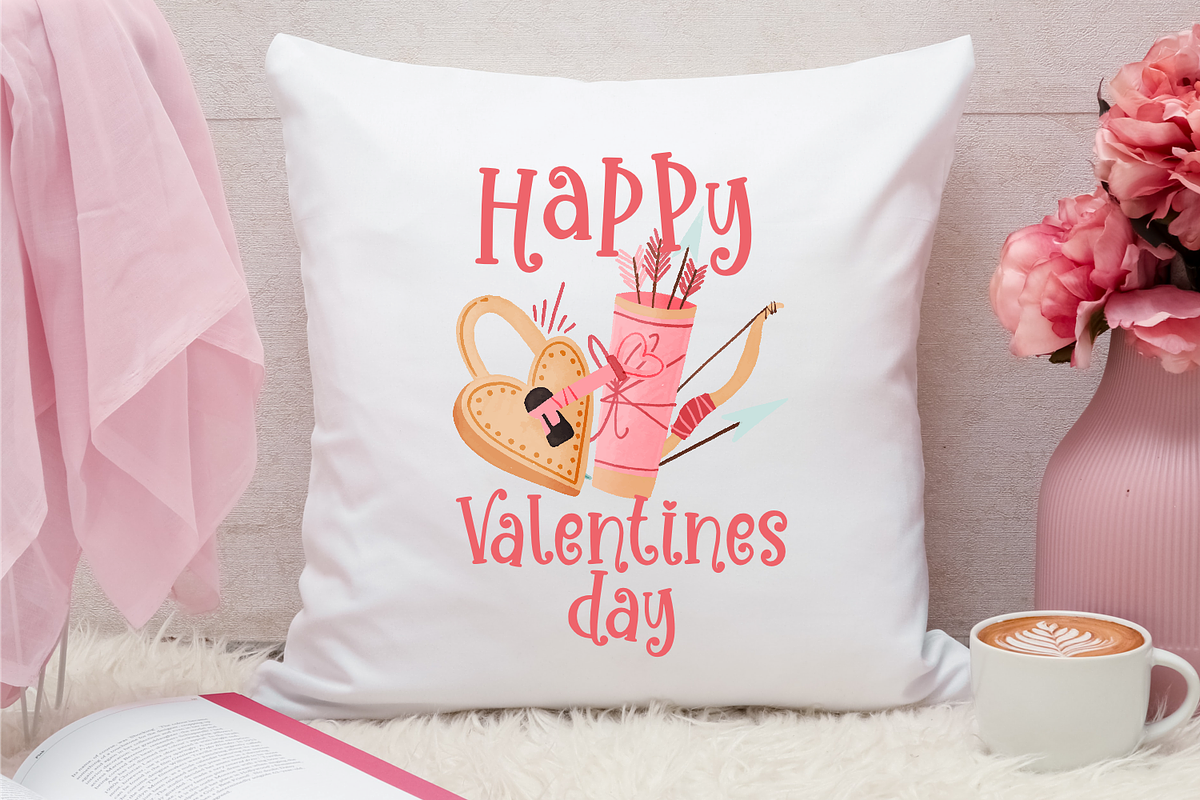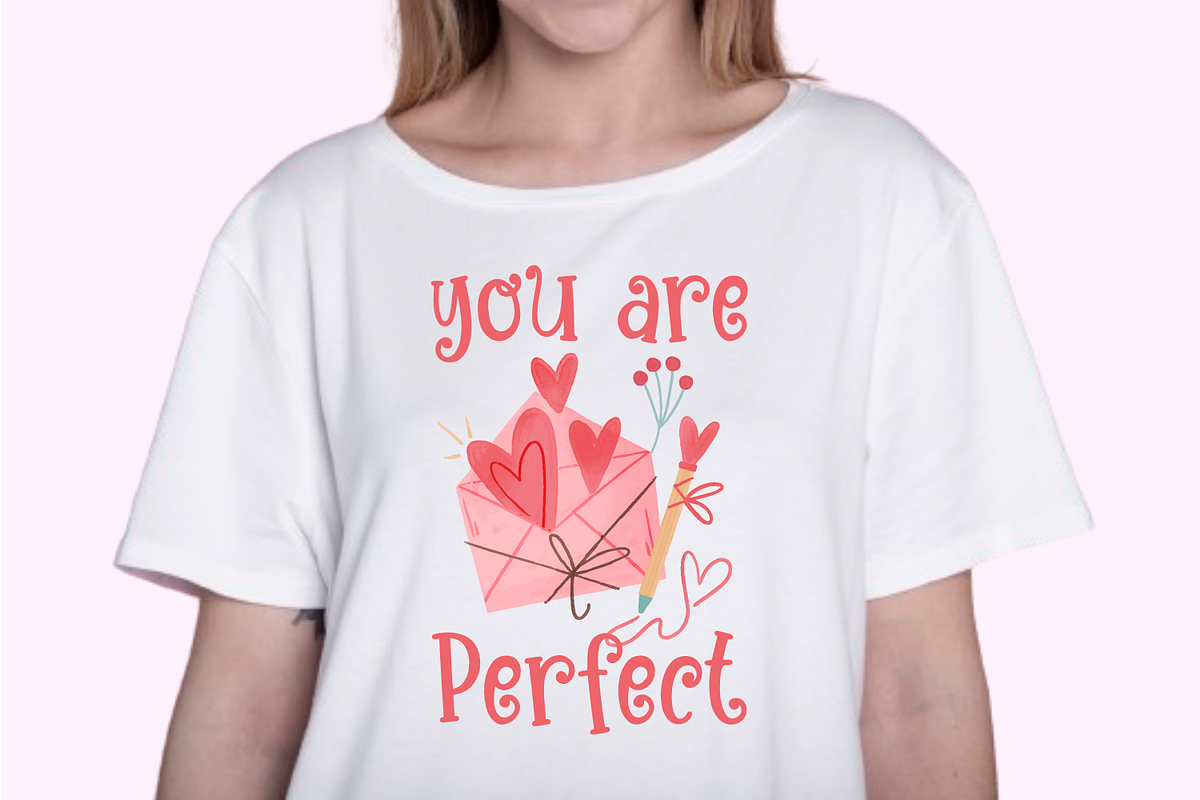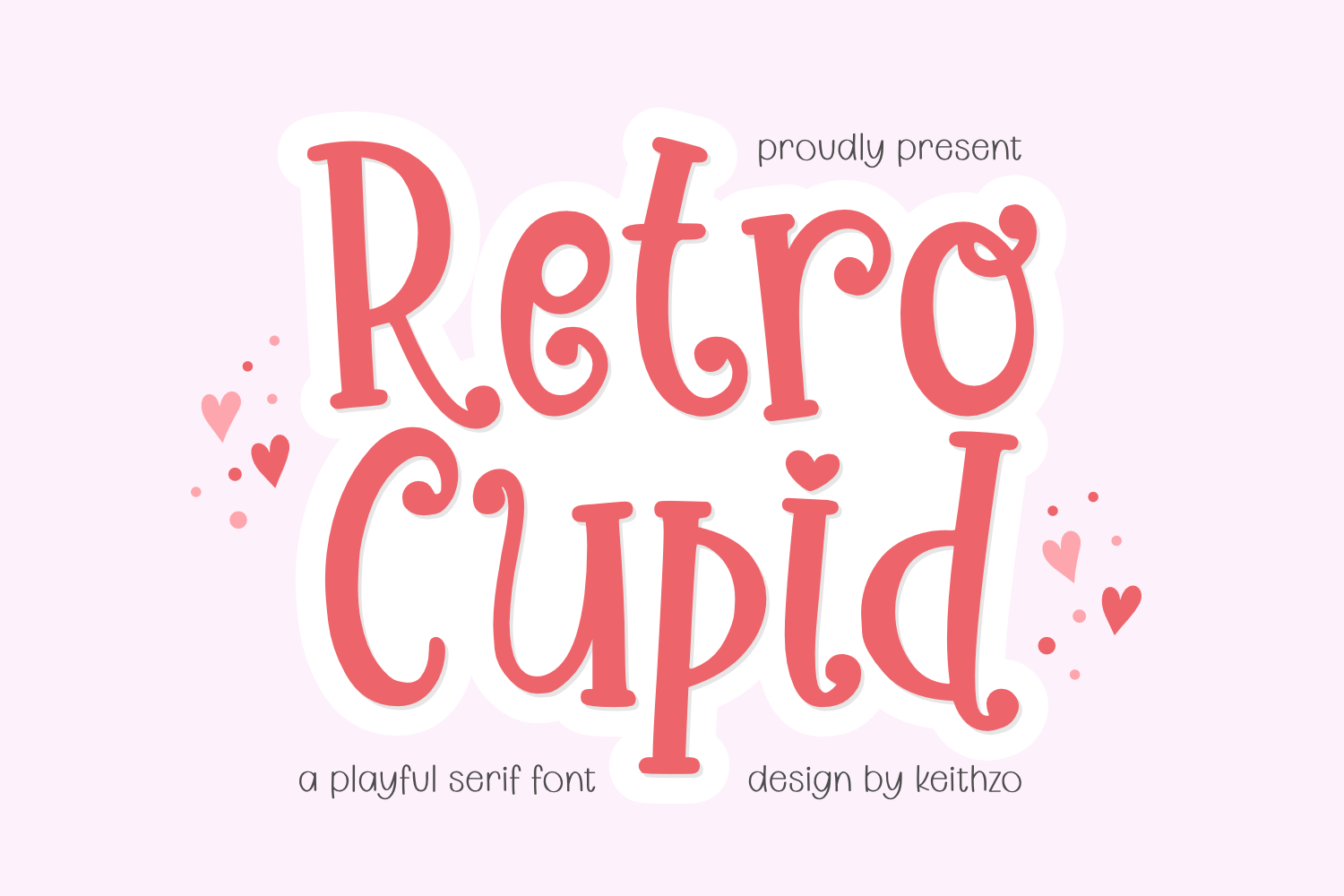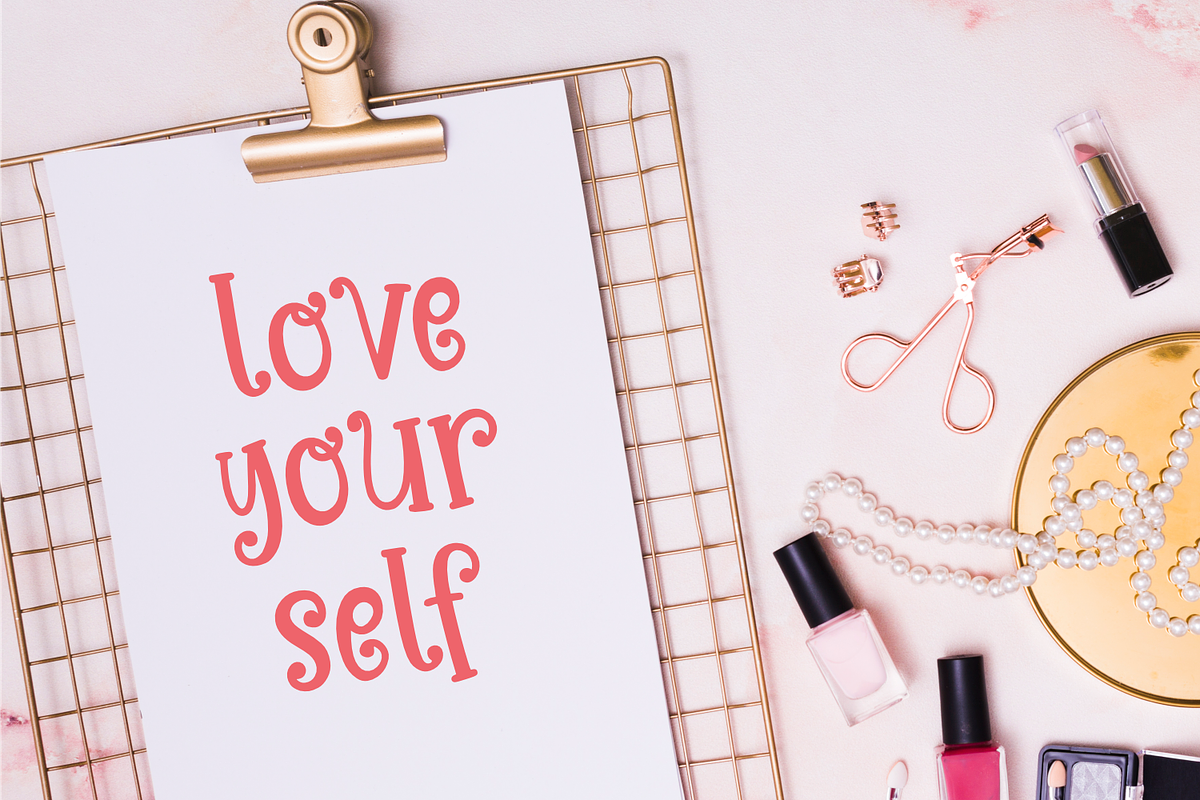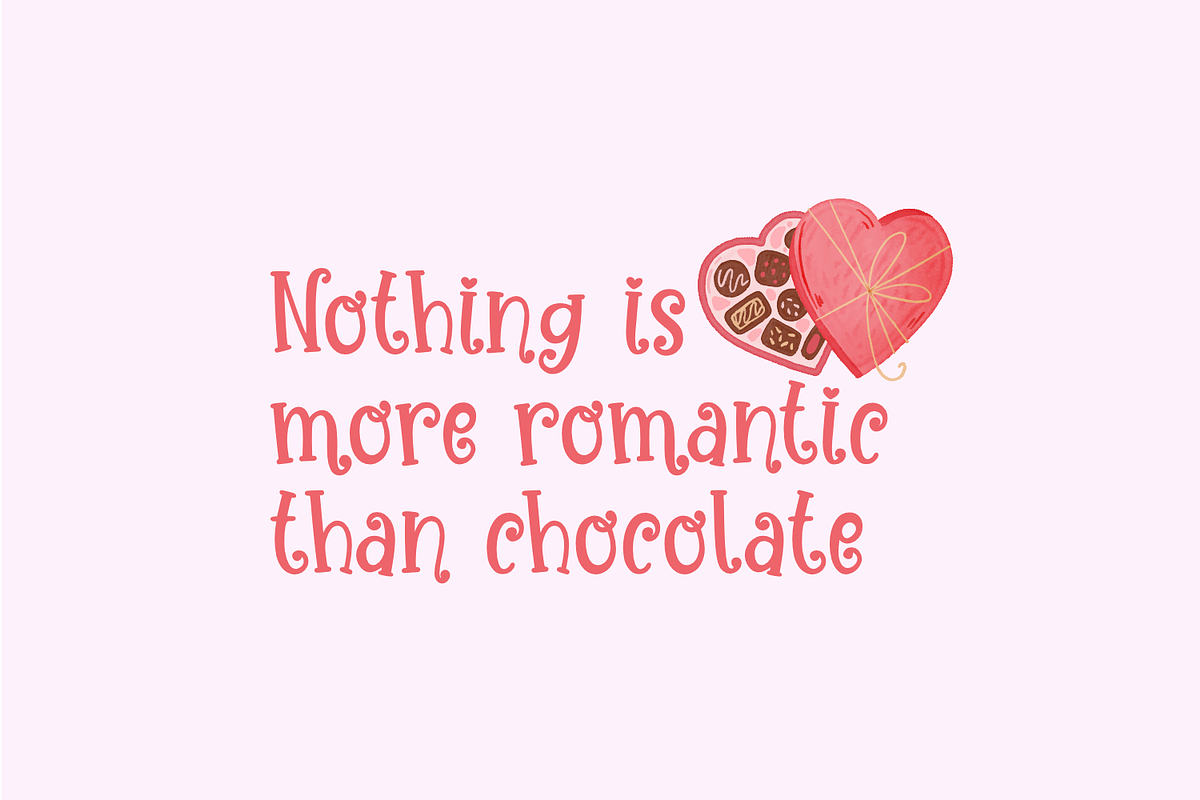
Retro Cupid - Valentines Font
Dive into the vibrant charm of Retro Cupid! This jovial serif font is an ode to love and merriment, perfect for producing an atmosphere steeped in enjoyment. Featuring a delightful Valentine theme, Retro Cupid flawlessly captures the essence of those moments we hold most dear. From heartfelt handcrafted gifts to affectionate notes shared with your beloved, this font enables you to effortlessly express your deepest feelings.
Choose Retro Cupid to imprint on t-shirts, Valentine greeting cards, or on cozy pillows – its versatility is your artistic playground. Spruce up your designs with a touch of Retro Cupid and make your creations pop with its eye-catching allure.